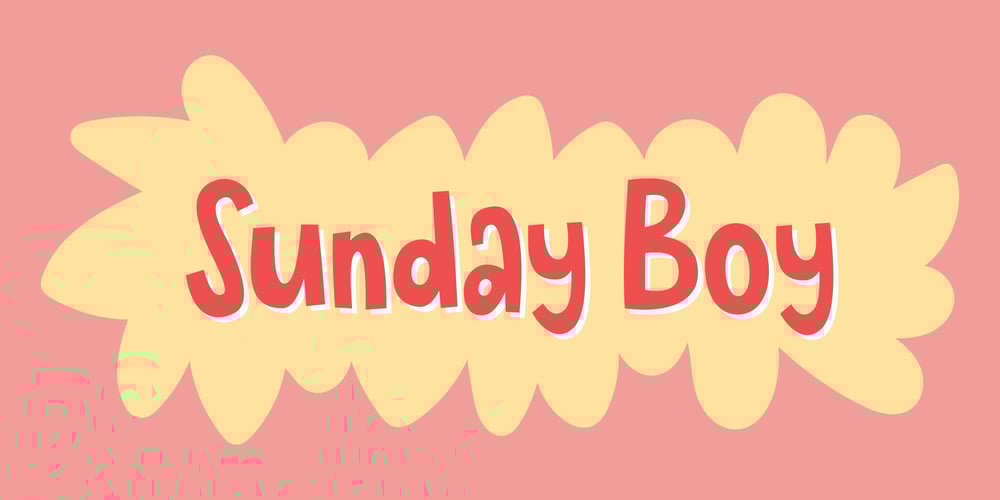
Sunday Boy Font Family was designed by Jakob Fischer and published by PizzaDude.dk. Sunday Boy contains 2 styles and family package options. Sunday Boy ima latest comic font – it is playful and super expressive. It has that lively energy with a whimsical lighthearted touch.